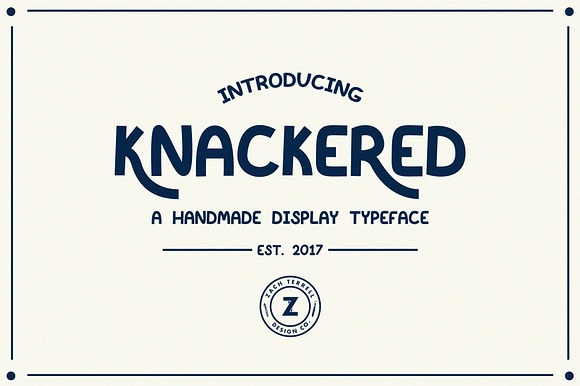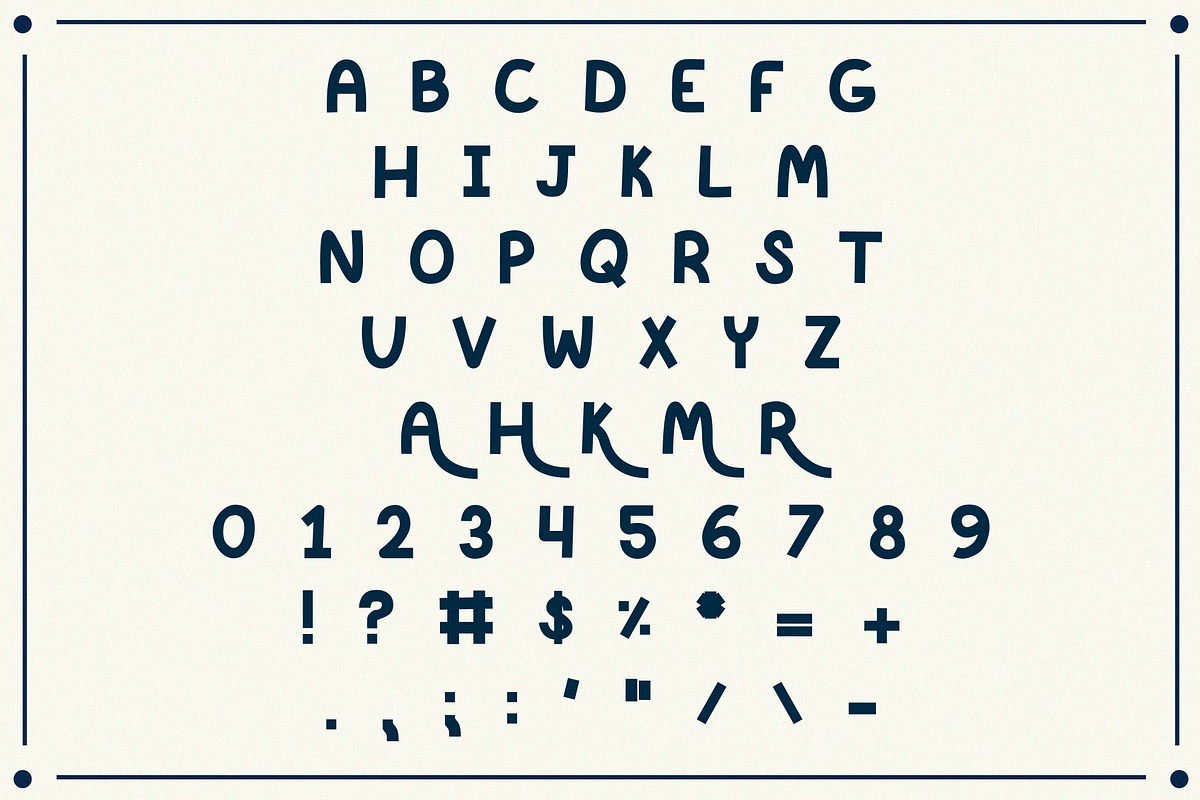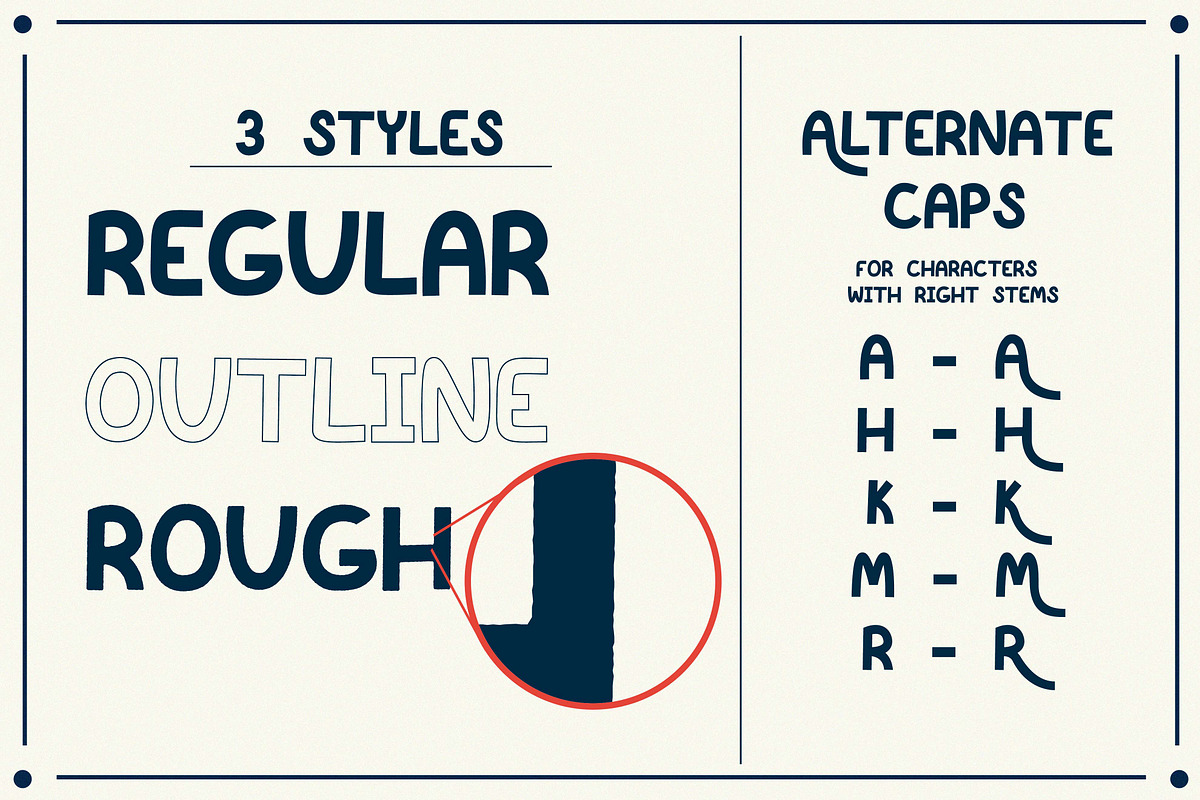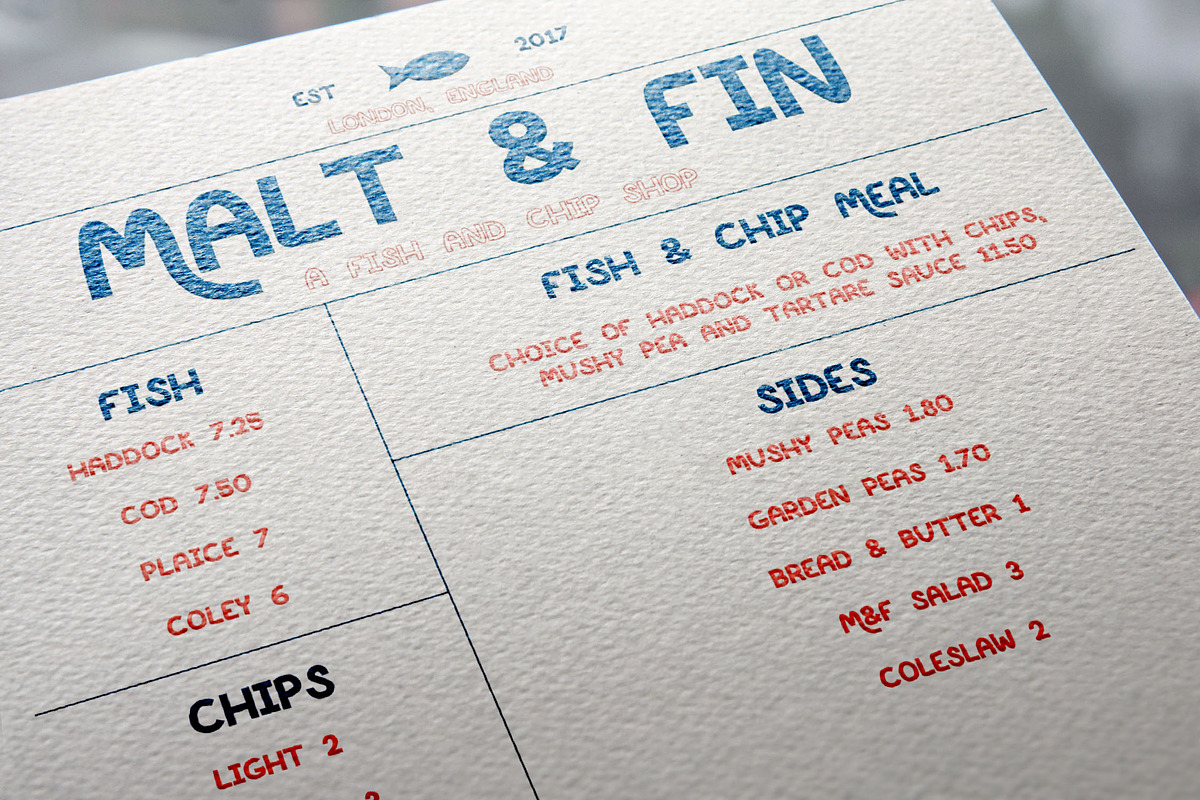
Knackered Font
Knackered is a handmade font inspired by my trip to London - an exhausting yet exciting city.
It is perfect for headlines, menus, signs, announcements, and more!
All cap font with alternate caps for A, H, K, M, and R (all the right stemmed characters)
3 styles: Regular, Outline, and Rough
Includes all cap alphabet, numbers, and punctuation